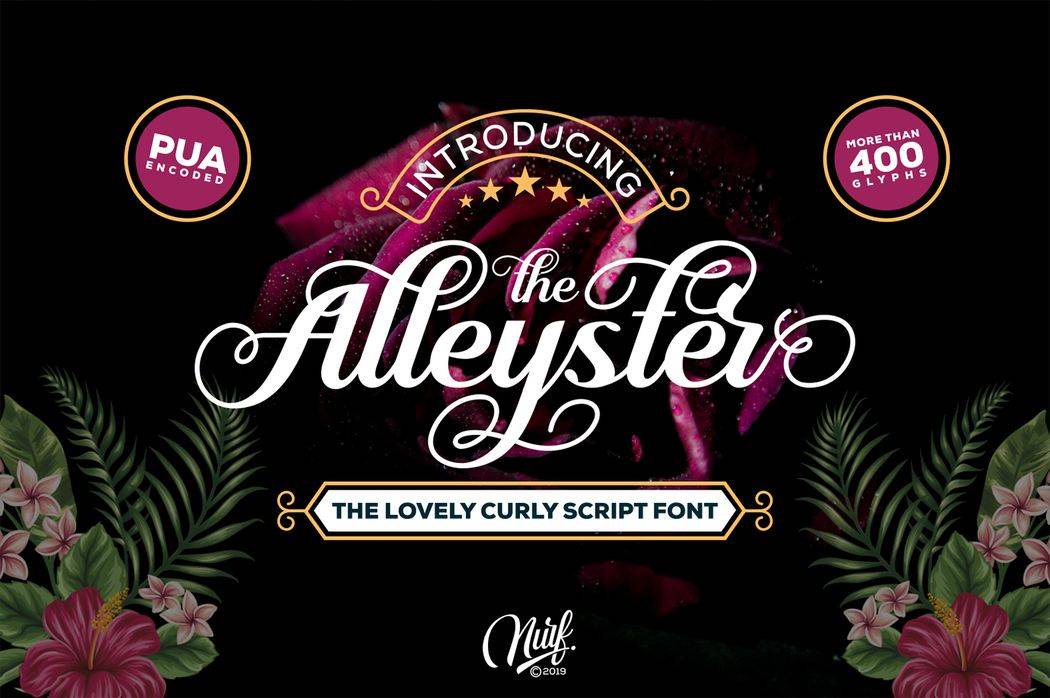
Alleyster is a stylish script font with elegant, flowing letterforms that combine a classic cursive charm with a modern touch. Its medium weight and moderate contrast in strokes make it versatile for sophisticated branding, invitations, and headlines where a refined, graceful feel is desired. This font works well in settings that call for a polished, luxurious look while maintaining readability and personality.
Alleyster Font
About Alleyster Font